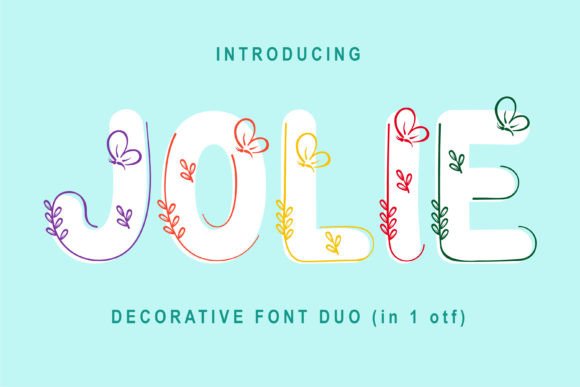
Introducing Jolie Font, the ultimate choice for those seeking the perfect decorative font to make their designs come alive! Created by the talented susecreative, Jolie Font is a delightful, fun, and cute layered font that adds a touch of magic to any project. Whether you're designing for print or digital media, this font is guaranteed to captivate and enchant your audience.
With its unique design, Jolie Font stands out from the crowd, making it the best font for LED display projects. Imagine your messages and signs illuminated with a font that exudes charm and personality. Jolie Font's decorative elements bring a playful and joyful touch to your designs, ensuring that they grab attention and leave a lasting impression.
The versatility of Jolie Font allows you to explore endless creative possibilities. Its uppercase base font provides a solid foundation, while the lowercase decorative font adds a touch of whimsy and cuteness. Mix and match the two to create eye-catching headlines, titles, and logos that are sure to stand out in any setting.
Whether you're a professional designer, a small business owner, or an aspiring DIY enthusiast, Jolie Font is the perfect choice for bringing your creative visions to life. Let your imagination run wild and watch as this font adds a touch of magic to your designs, elevating them to a whole new level.